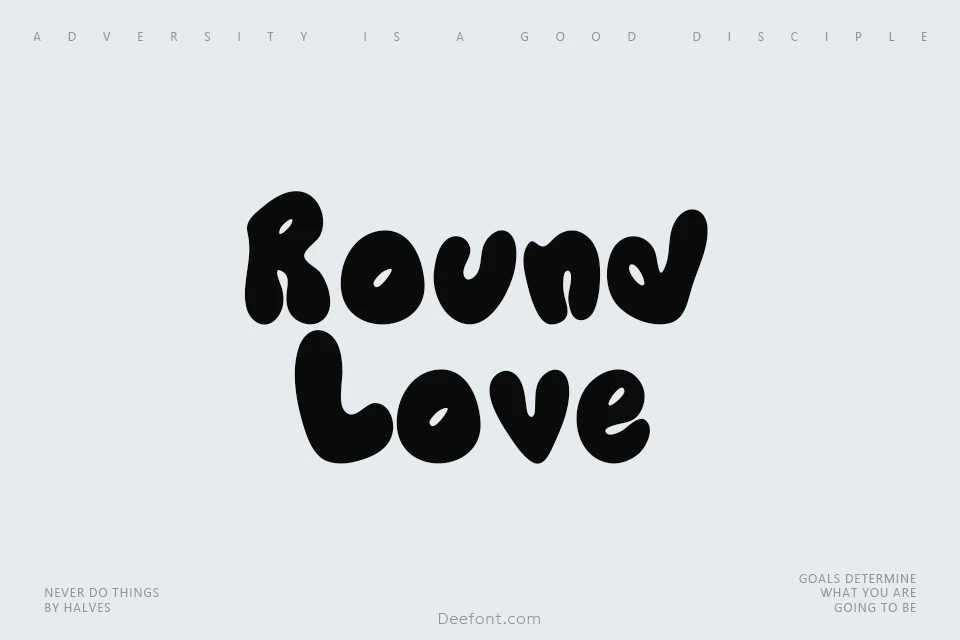
Round Love Font
Round Love Font is a playful and hand-drawn typeface that exudes charm and creativity. Inspired by the artistic style of Alejandro Bastardo, this font captures a sense of fun and individuality with its bold, rounded letters. Perfect for projects that require a touch of whimsy, Round Love is ideal for posters, packaging, social media graphics, and branding designs. Its organic shapes and unique character make it stand out, adding warmth and personality to any visual composition. Whether you’re aiming for a retro vibe or a modern playful aesthetic, Round Love Font brings joy and originality to your creations.